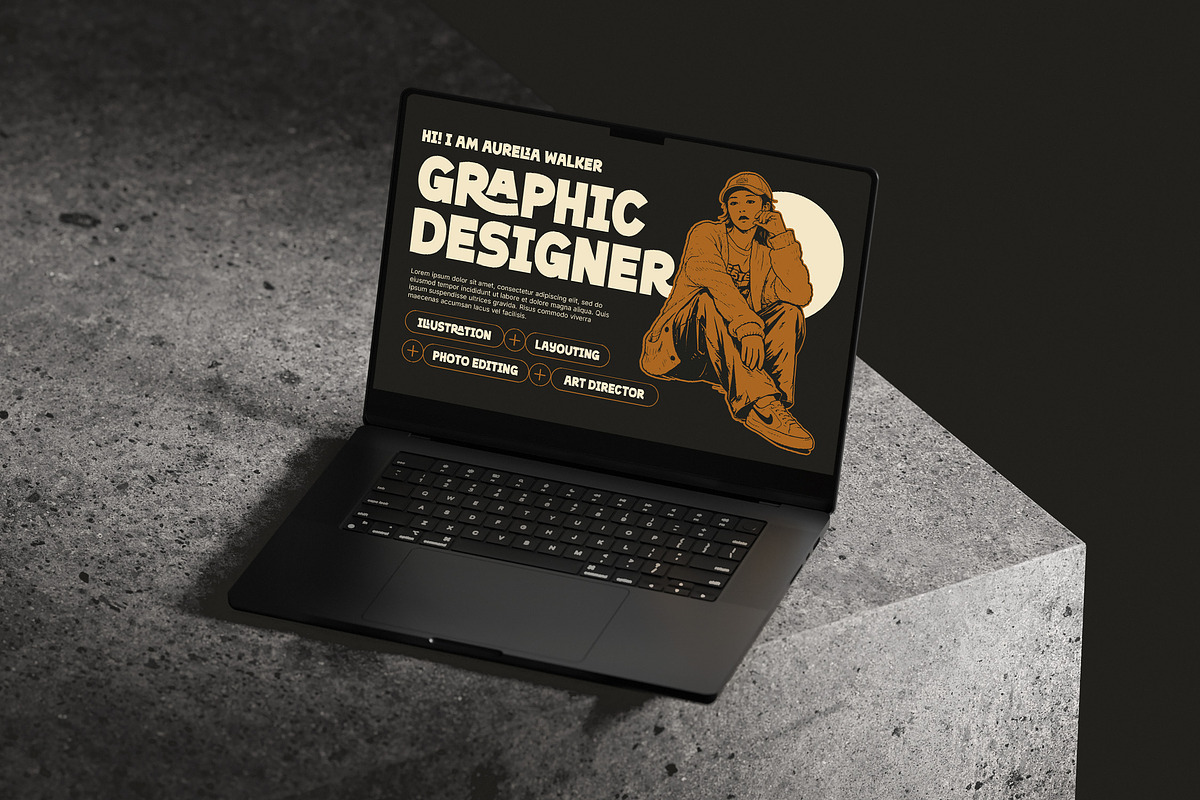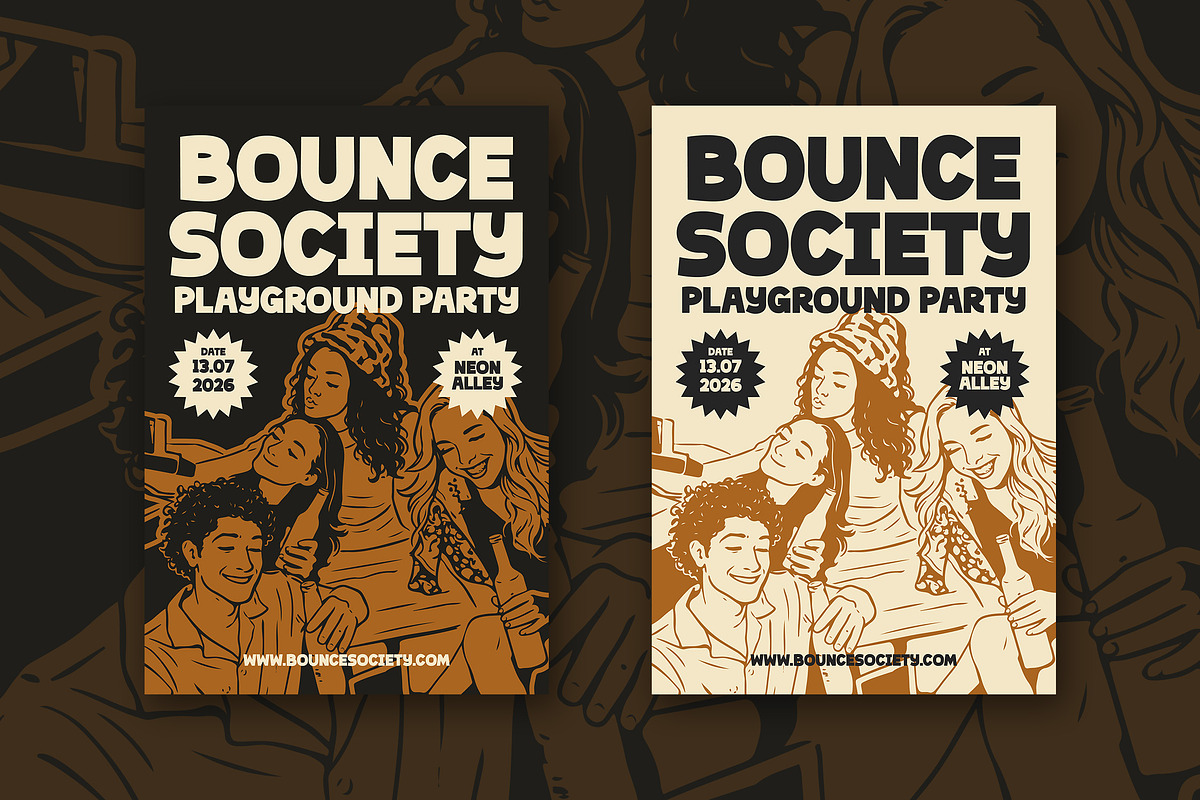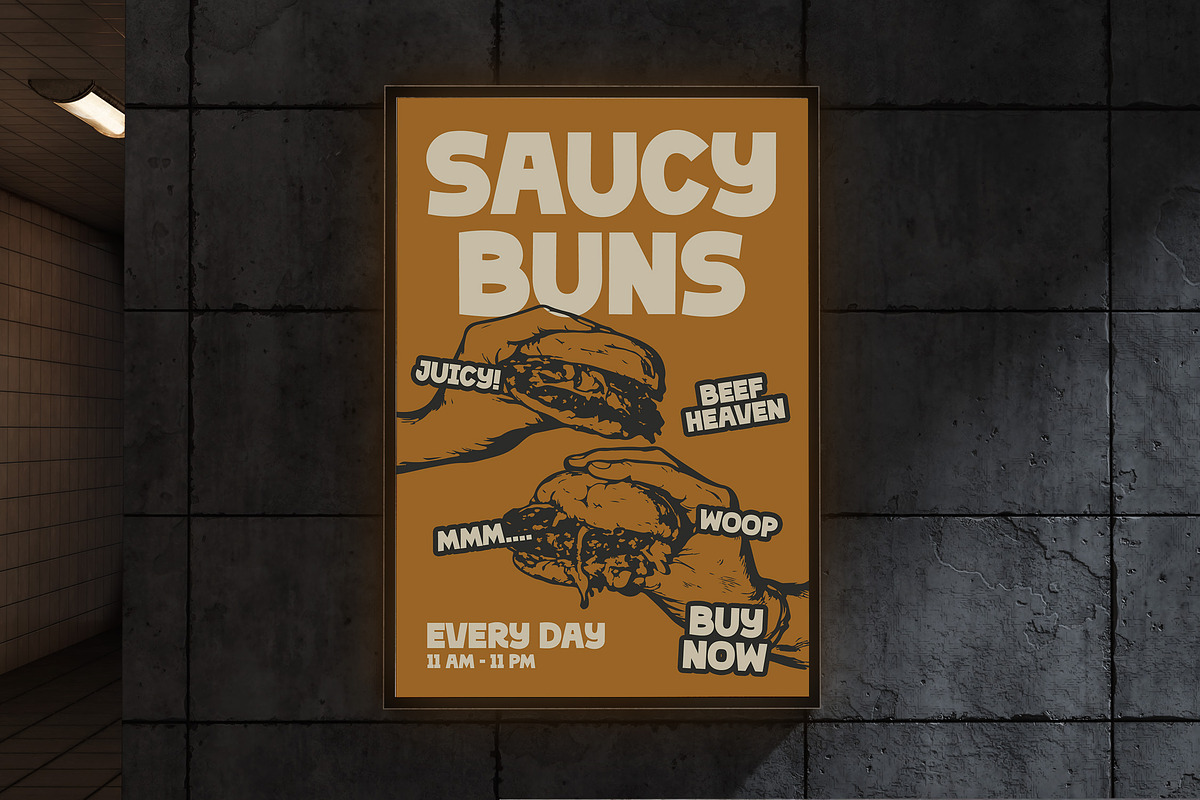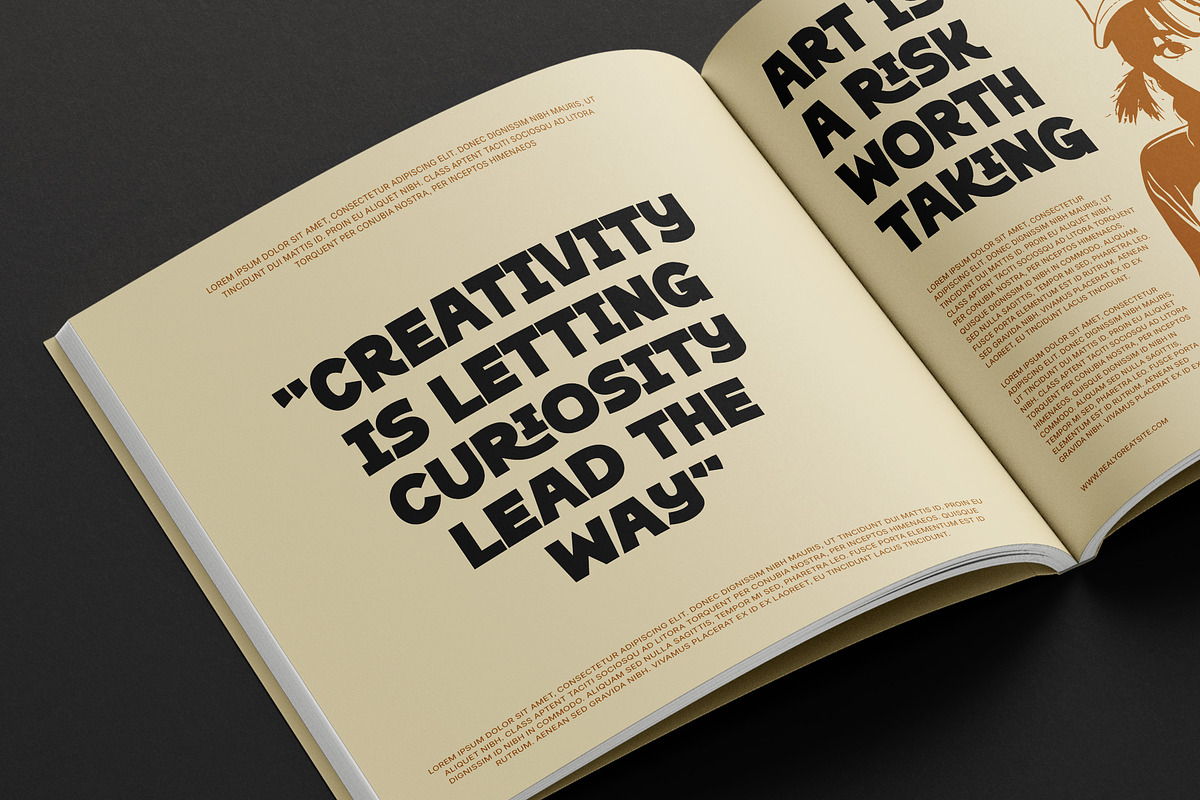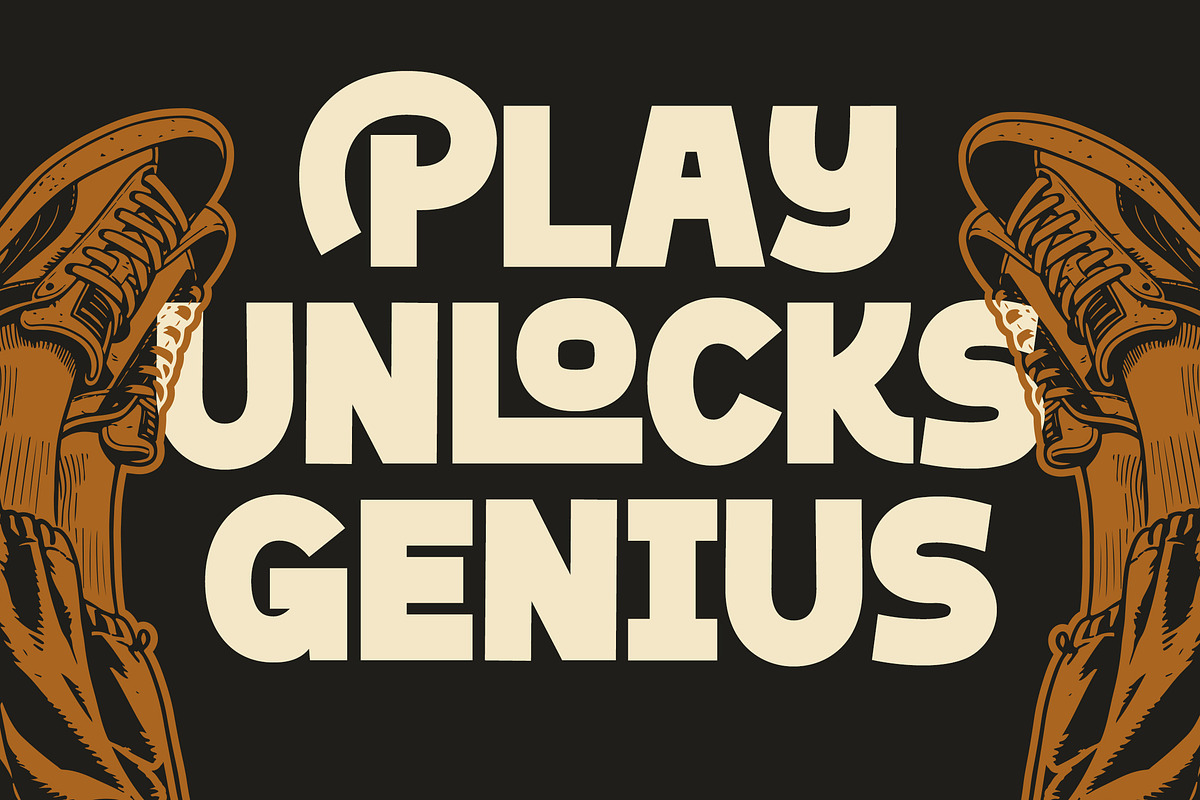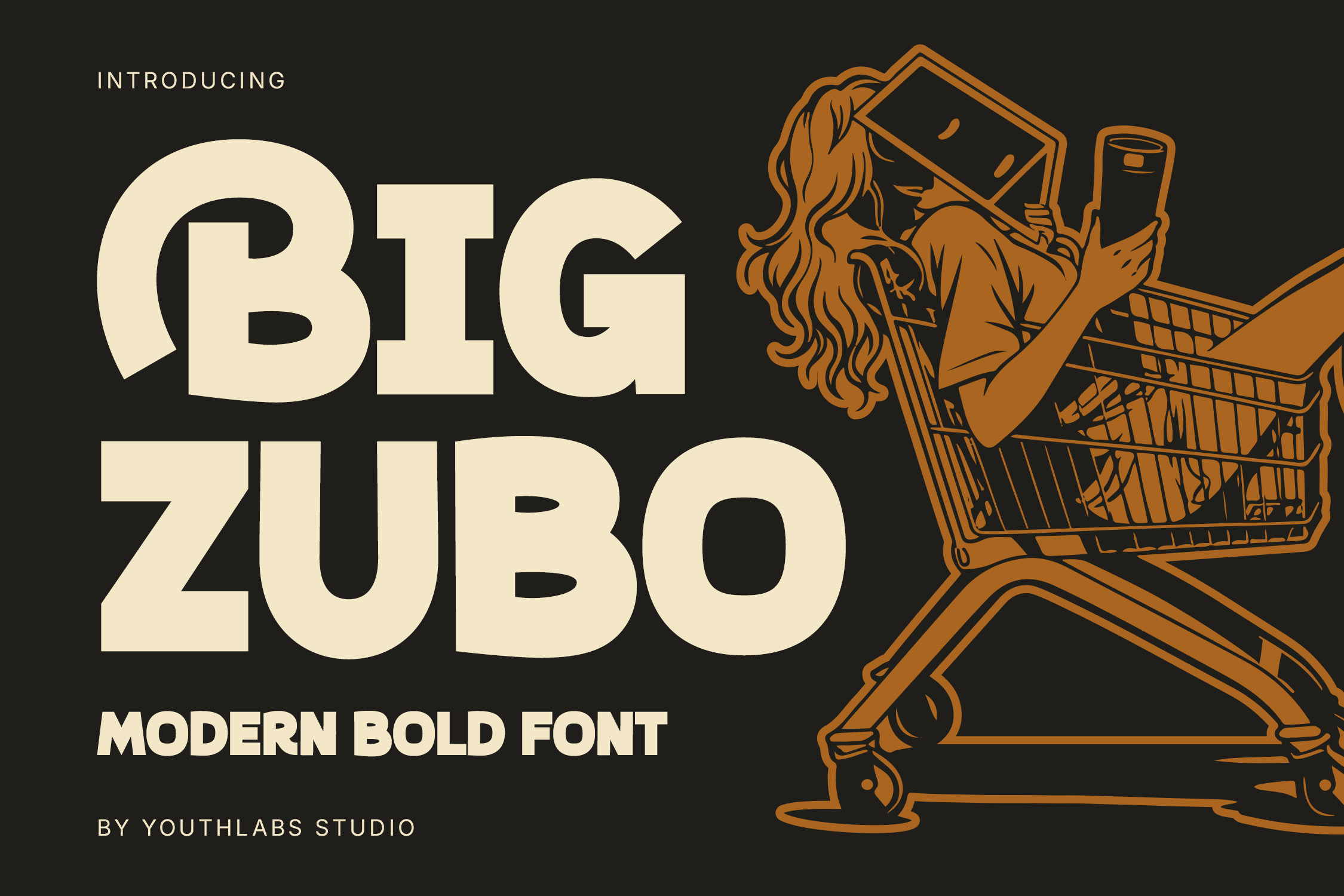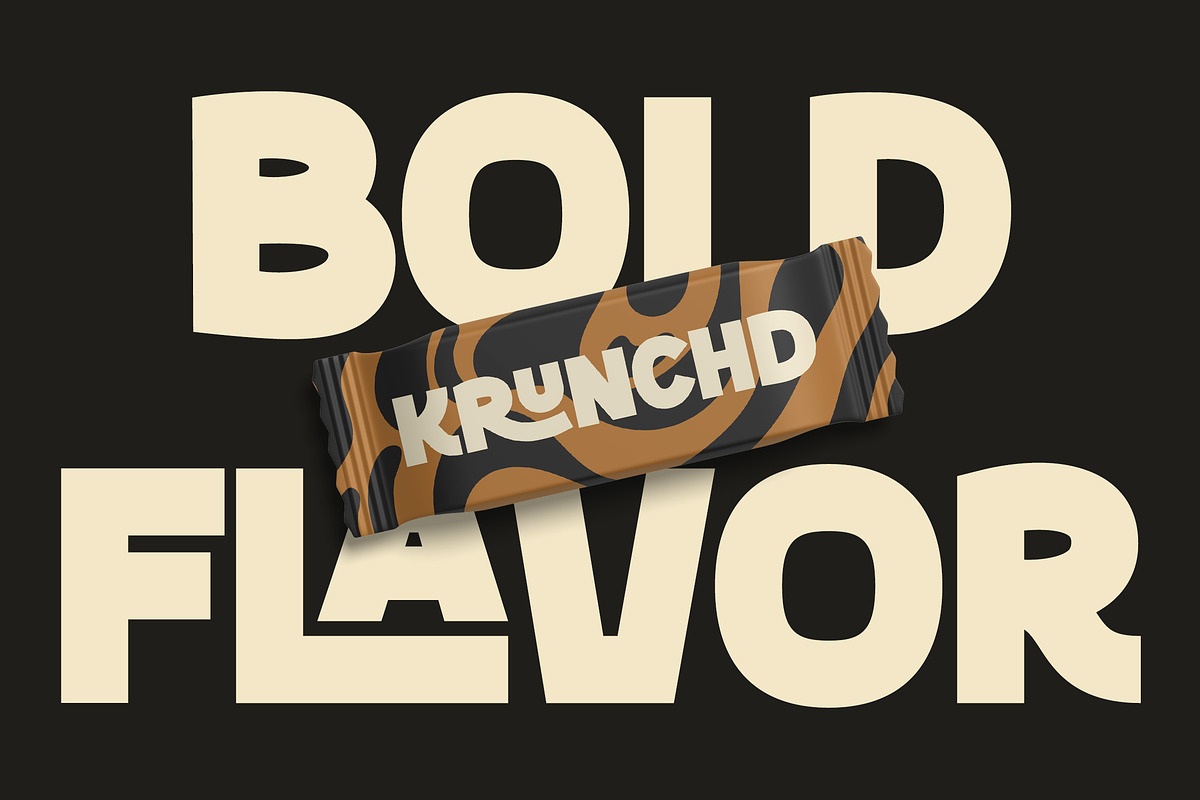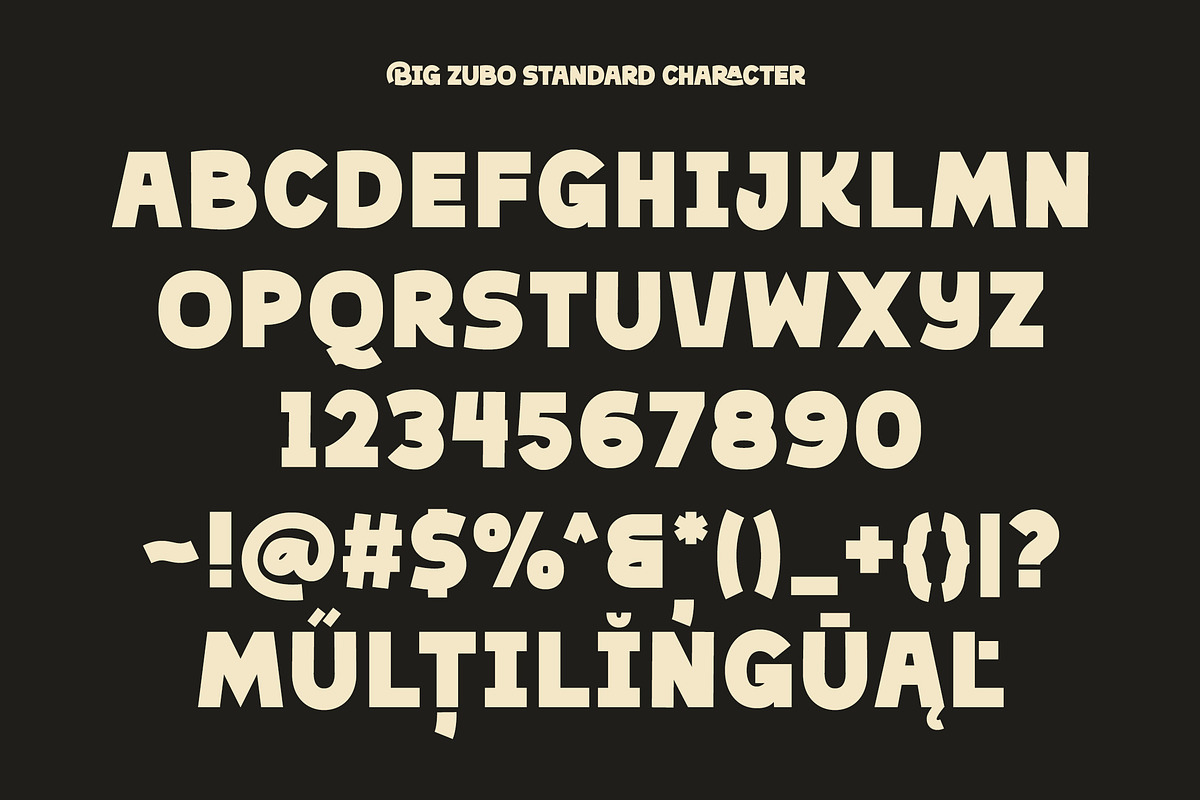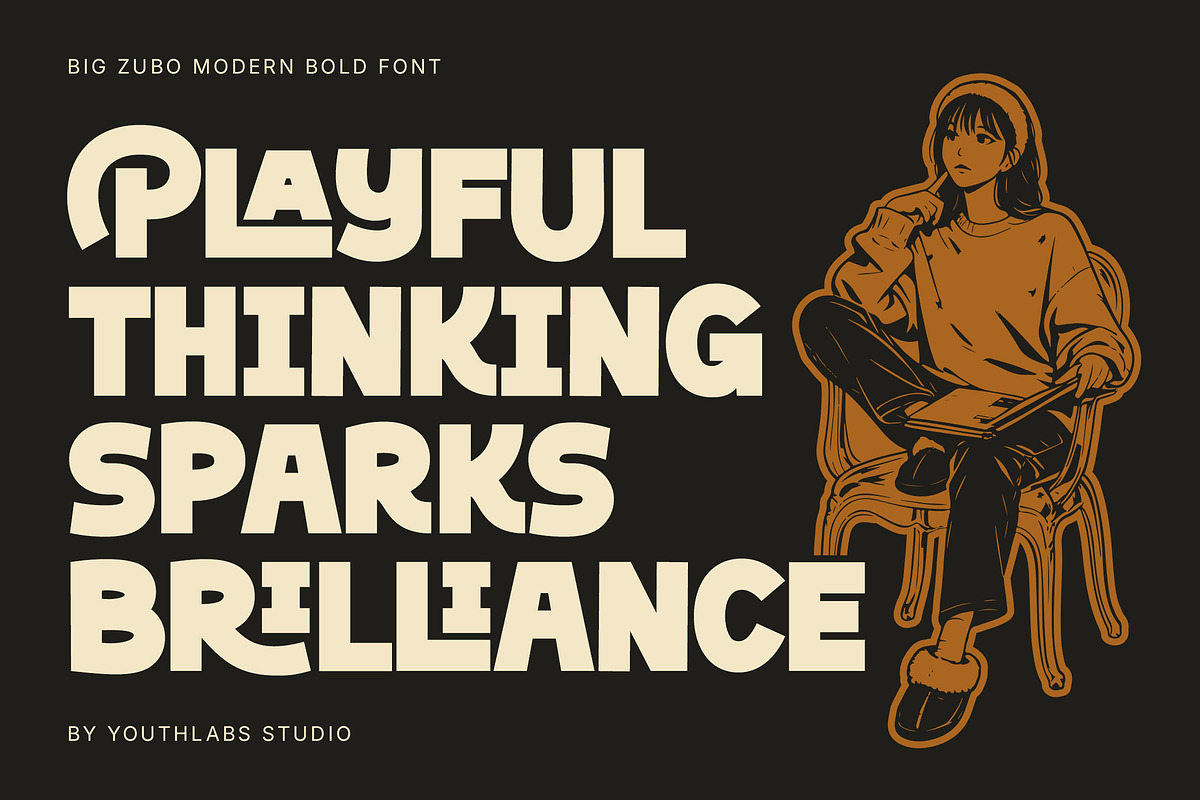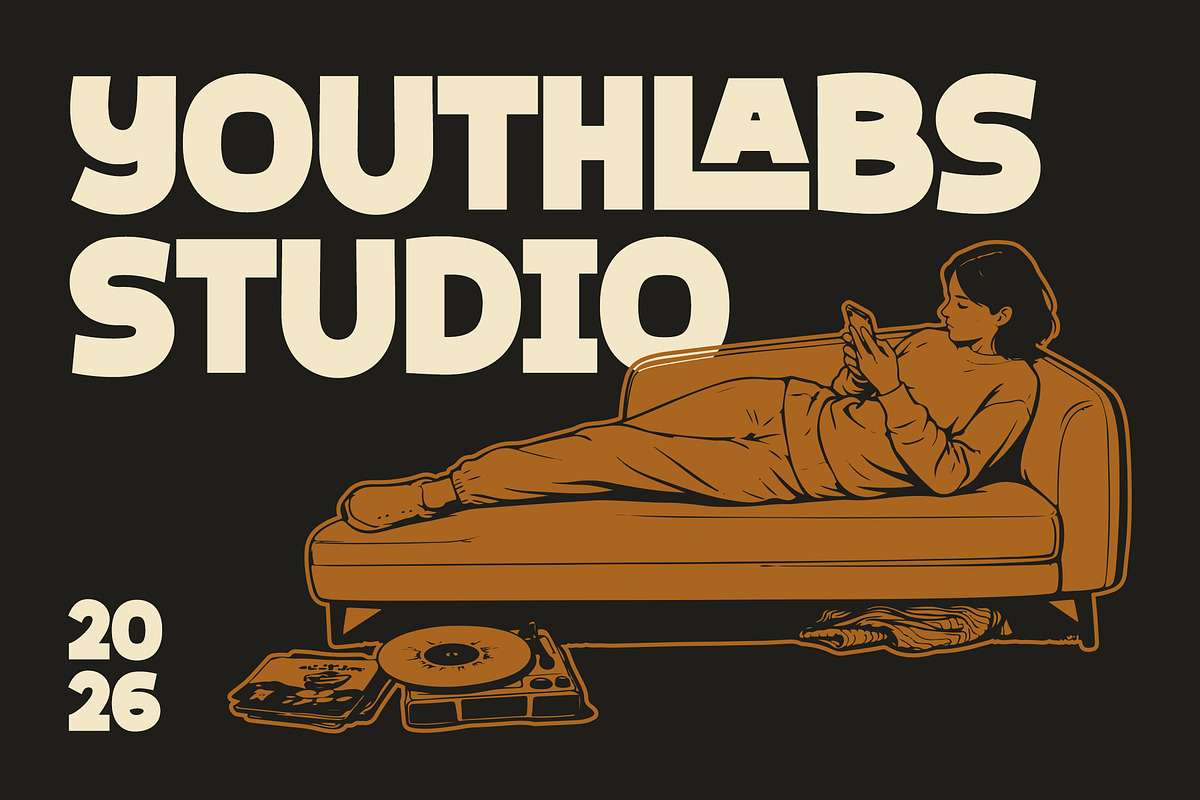
Big Zubo – Modern Bold Display Font
BIG ZUBO is a modern bold display font built to make a powerful statement. With chunky letterforms, soft curves, and confident proportions, this font delivers a playful yet professional vibe. Perfect for branding, posters, packaging, headlines, logos, apparel, and digital visuals, BIG ZUBO instantly grabs attention while staying clean and readable. Designed for creators who want bold personality without sacrificing clarity.approachable.
- Modern bold display font
- Strong, chunky, and rounded letterforms
- High readability for large headlines
- Playful yet professional character
- Perfect for branding & logo design
- Ideal for posters, packaging & merch
- Works great for digital & print use
- Eye-catching retro-modern aesthetic